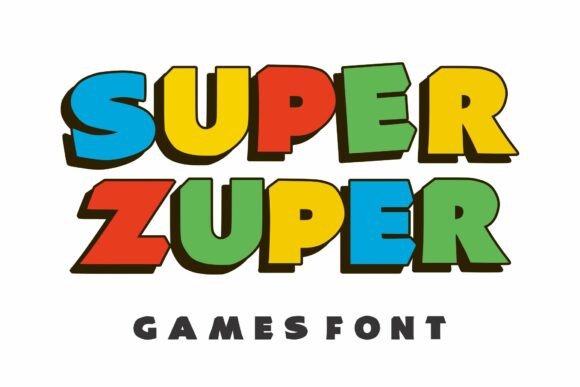
Introducing Super Zuper Font: The Ultimate Choice for Delightful Designs
Are you looking for a font that can add a touch of elegance, charm, and fun to your designs? Look no further than Super Zuper Font, a delightful display font that is perfect for children-themed projects. With its clean yet cheerful character design, Super Zuper Font is sure to bring a joyful energy to your designs, making them shine like never before.
What Makes Super Zuper Font So Special?
Super Zuper Font is a unique and versatile font that blends elegance, charm, and fun into every letter. Its clean yet cheerful character design makes it perfect for a wide range of applications, from educational printables and storybooks to posters, classroom decor, and playful branding. Whether you’re a designer, teacher, or parent, Super Zuper Font is an excellent choice for anyone looking to create delightful and engaging designs for kids.
The Perfect Font for Children-Themed Projects
Super Zuper Font is specifically designed with children in mind. Its playful and cheerful character design is sure to capture the attention of kids and make your designs stand out. The font is perfect for a wide range of children-themed projects, including:
- Educational printables: Create engaging and interactive worksheets, activity sheets, and educational resources that kids will love.
- Storybooks: Add a touch of magic to your storybooks with Super Zuper Font, making them perfect for bedtime reading or classroom storytelling.
- Posters: Create eye-catching posters that promote learning, positivity, and fun, perfect for classrooms, libraries, or kids’ rooms.
- Classroom decor: Use Super Zuper Font to create colorful and engaging classroom decor, including bulletin boards, alphabet charts, and number lines.
- Playful branding: Create a brand identity that kids will love, with Super Zuper Font adding a playful and cheerful touch to your logo, packaging, and marketing materials.
Why Pair Super Zuper Font with Bright or Pastel Colors?
Super Zuper Font is a versatile font that can be paired with a wide range of colors to create different moods and effects. However, it’s particularly stunning when paired with bright or pastel colors, which complement its cheerful and playful character design. Bright colors like red, blue, and yellow can add a bold and energetic touch to your designs, while pastel colors like pink, blue, and yellow can create a softer and more soothing effect.
When paired with bright or pastel colors, Super Zuper Font can help you create designs that are:
- Fun and playful: Perfect for kids’ parties, playdates, or any event that requires a fun and lively atmosphere.
- Educational and engaging: Ideal for educational resources, worksheets, and activity sheets that require a playful and interactive approach.
- Calming and soothing: Suitable for children’s bedrooms, nurseries, or any space that requires a peaceful and calming atmosphere.
Tips and Tricks for Using Super Zuper Font
To get the most out of Super Zuper Font, here are some tips and tricks to keep in mind:
- Experiment with different colors: Try pairing Super Zuper Font with different bright or pastel colors to create unique and eye-catching designs.
- Mix and match font sizes: Use Super Zuper Font in different font sizes to create visual interest and hierarchy in your designs.
- Use it with other fonts: Combine Super Zuper Font with other fonts to create a unique and engaging typography style.
- Make it bold: Use the bold version of Super Zuper Font to add emphasis and create a striking effect in your designs.
The Benefits of Using Super Zuper Font
Super Zuper Font offers a range of benefits that make it an excellent choice for designers, teachers, and parents. Some of the benefits include:
- Time-saving: With Super Zuper Font, you can create engaging and delightful designs in no time, saving you time and effort.
- Versatile: Super Zuper Font can be used for a wide range of applications, from educational resources to playful branding.
- High-quality: Super Zuper Font is a high-quality font that is designed to produce stunning results, even at large font sizes.
| Font Name | Super Zuper Font |
In conclusion, Super Zuper Font is a delightful display font that is perfect for children-themed projects. With its clean yet cheerful character design, it’s sure to bring a joyful energy to your designs, making them shine like never before. Whether you’re a designer, teacher, or parent, Super Zuper Font is an excellent choice for anyone looking to create engaging and delightful designs for kids.